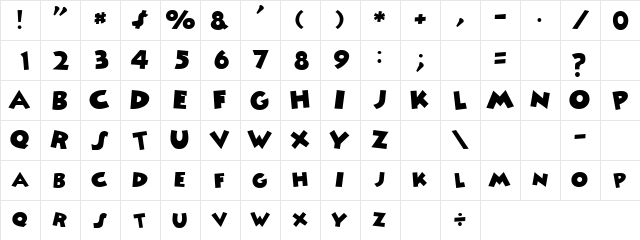
Minnie Regular
Design Context for Minnie Typeface
Minnie is a composed and adaptable typeface that performs quietly and consistently across a wide range of design contexts.